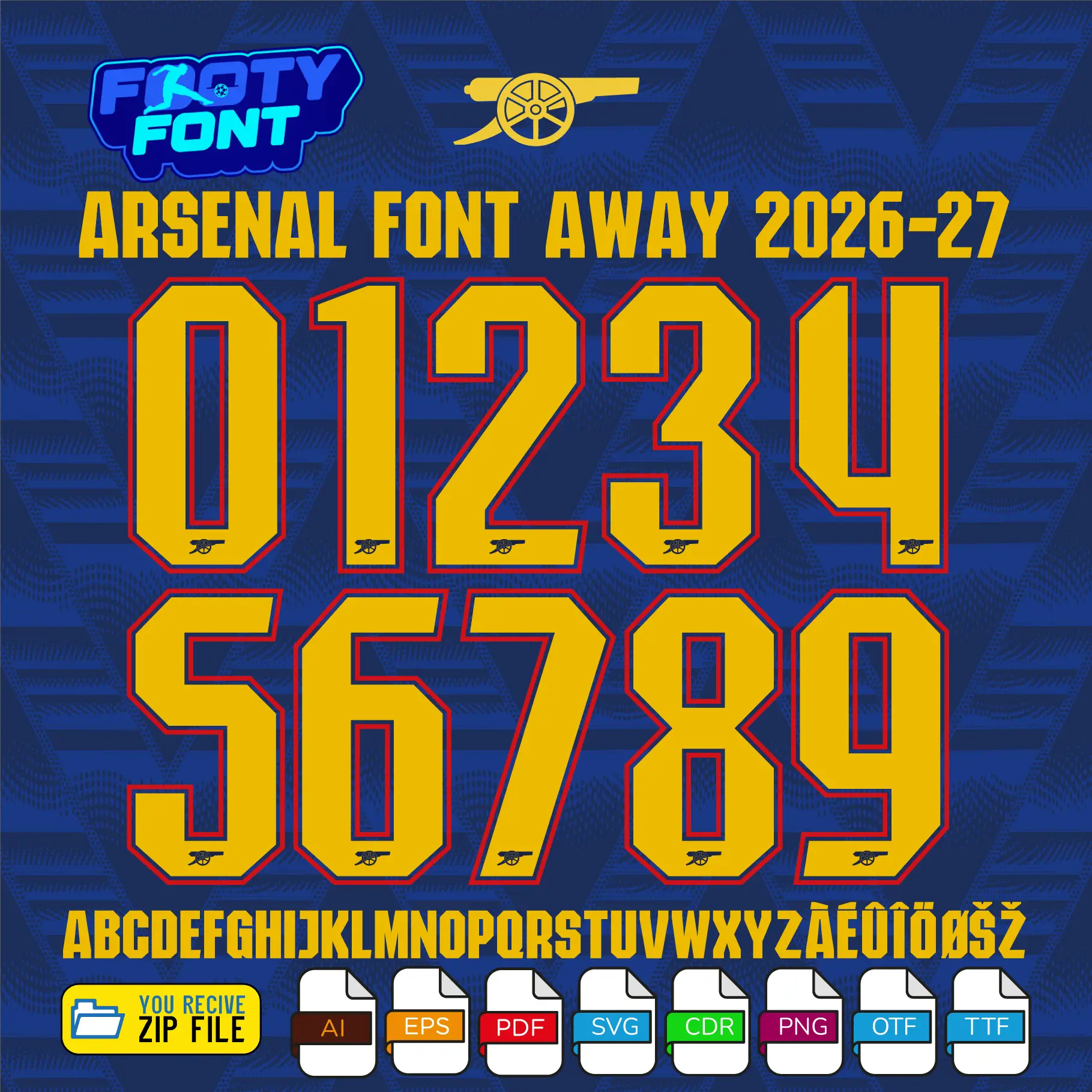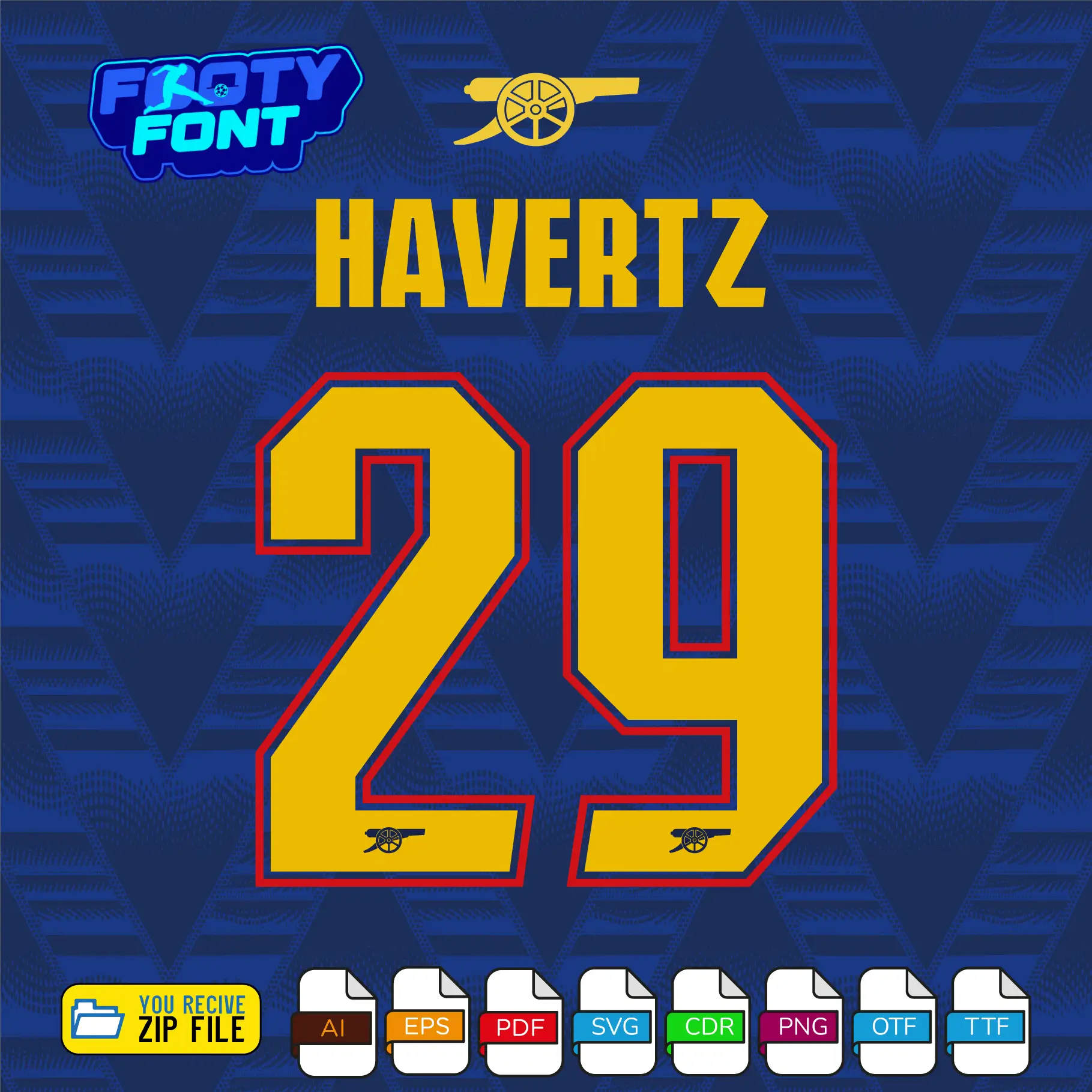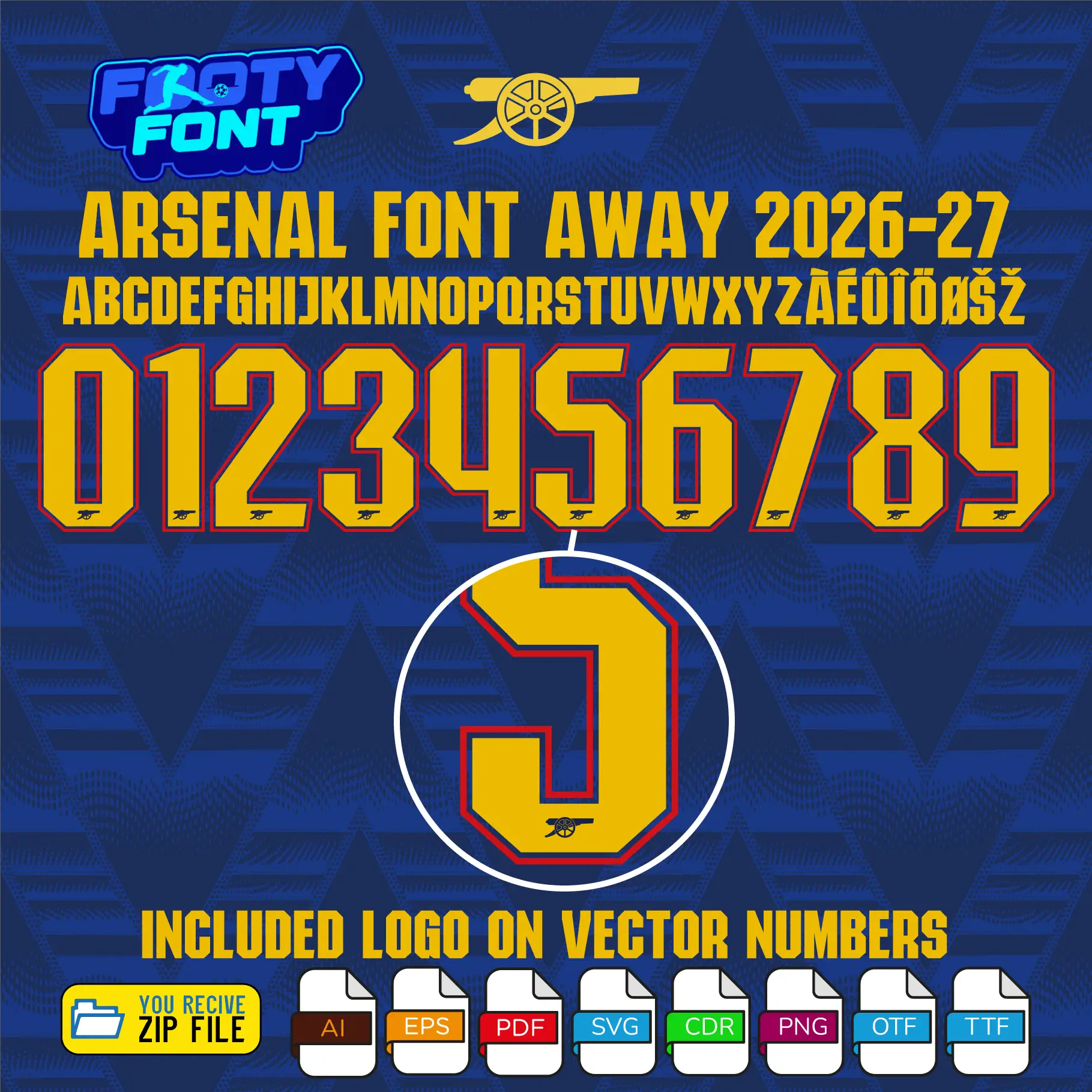
Arsenal 2026-27 Football Font
Bring the electrifying energy of the Gunners on the road to your designs with this font football, inspired by the Arsenal 2026-27 away kit. This high-quality typeface is meticulously designed to replicate the sleek, modern lettering worn by Arsenal during their away fixtures. It features striking, geometric golden-yellow numbers outlined in a bold red, finished with sharp dark blue detailing that perfectly complements their intricate deep blue patterned away jerseys.
This font captures the elite style worn by global superstars like Kai Havertz, Bukayo Saka, and Martin Ødegaard. As Arsenal hits the road to compete for domestic and UEFA Champions League and domestic cup campaigns., this away font is an absolute must-have for fans creating custom jersey designs, digital art, streetwear, or matchday posters.
Use this font to bring authentic English football style into your designs-whether for custom jersey graphics, fan merchandise, posters, or social media content.